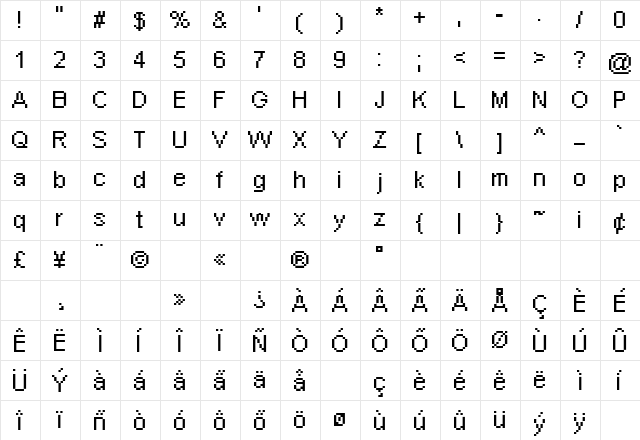
Arial 11 for Flash 5 beta Regular Font Preview
Arial 11 for Flash 5 beta Regular
Design Context for Arial 11 for Flash 5 beta Typeface
Arial 11 for Flash 5 beta is a composed and adaptable typeface that performs quietly and consistently across a wide range of design contexts.